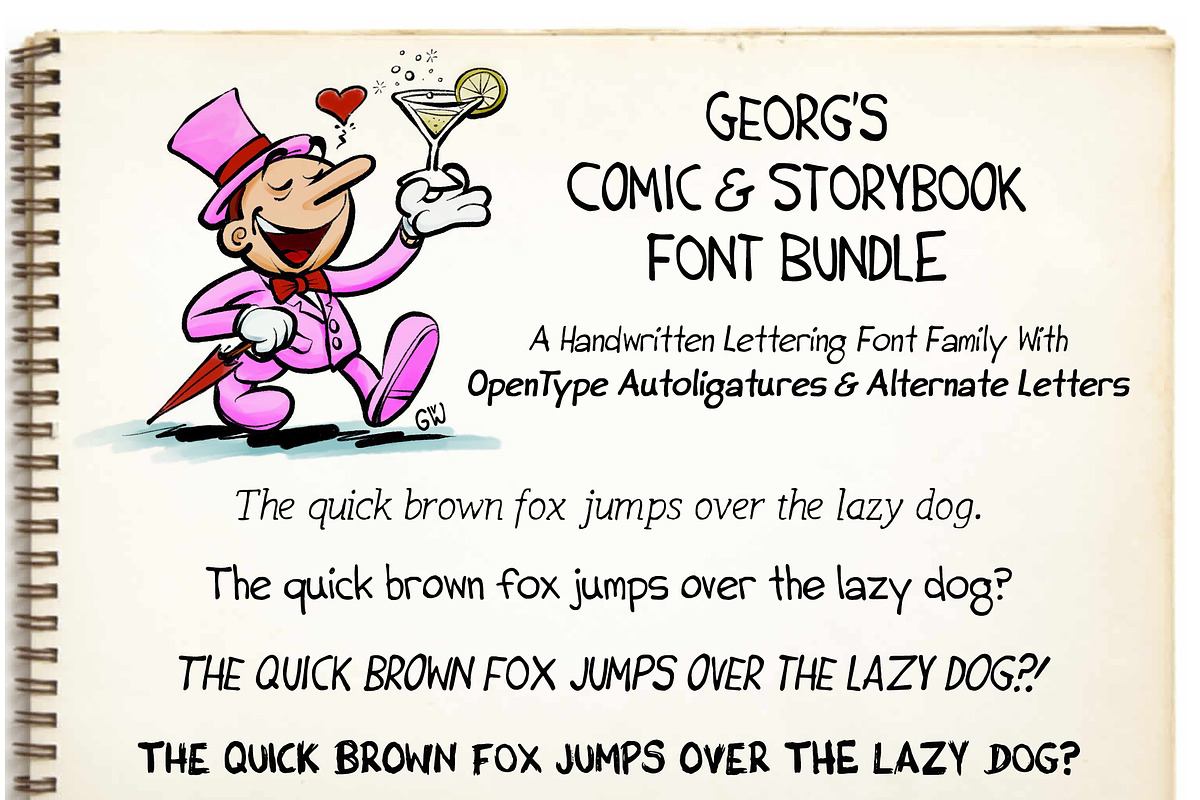
11+ Fonts for Comics & Storyboards Free Download is a powerful collection tailored for storytellers, illustrators, and comic creators. Featuring a dynamic mix of bold, expressive, and highly legible typefaces, this bundle is perfect for speech bubbles, action scenes, sound effects, narration boxes, and storyboard annotations.
From playful and punchy to serious and cinematic, each font in this pack is designed to enhance visual storytelling and keep your audience engaged. Whether you're crafting a graphic novel, a webcomic, or a pitch-ready storyboard, this bundle gives you the tools to bring your words to life.